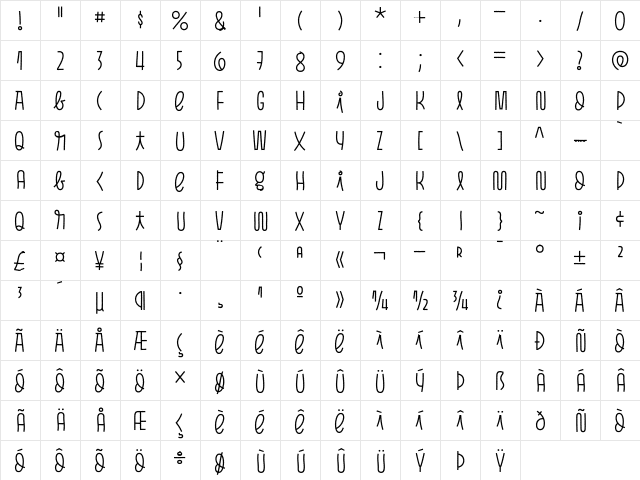
Pasto Print Light
| Foundry | Julia Martinez Diana, Antipixel |
| Designer | Julia Martinez Diana, Antipixel |
Design Context for Pasto Typeface
Pasto takes a measured approach to typography — its balanced proportions and neutral character make it a reliable workhorse for both digital and print work. The delicate stroke weight brings airiness and refinement to layouts.